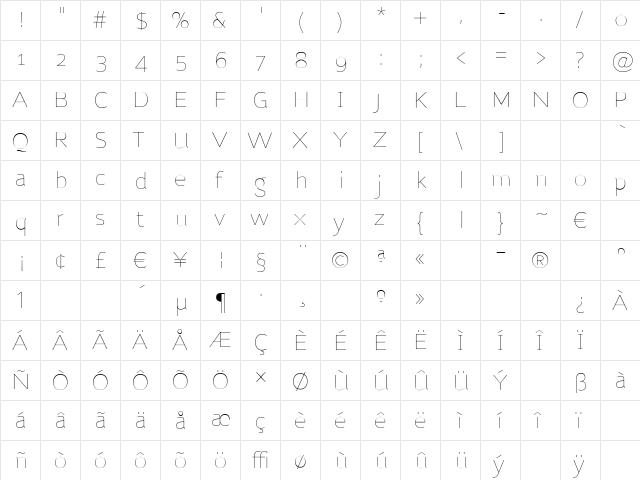
NubianThin Regular
Design Context for NubianThin Typeface
NubianThin offers clean, dependable letterforms without strong stylistic allegiance, making it a practical choice for designers who need flexibility. Its slender proportions lend an understated elegance to any composition.